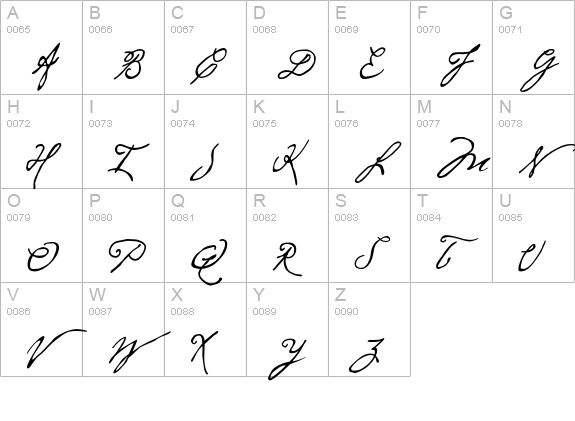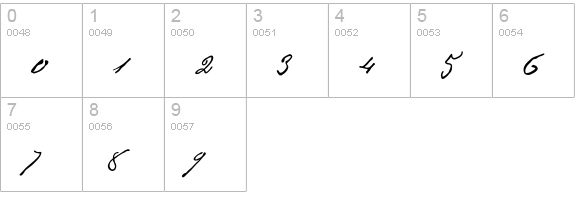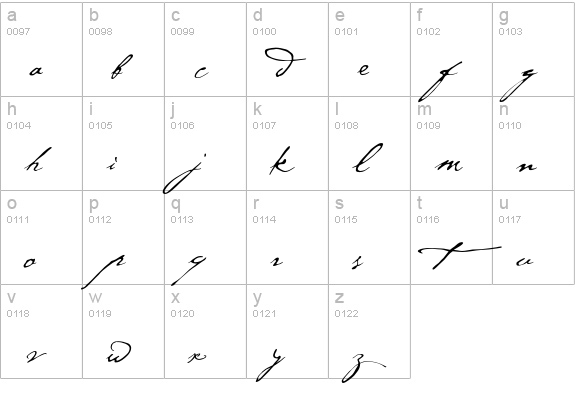
Cezanne Font Details
Cezanne font is a modern and stylish typeface that exudes sophistication and elegance. With its clean lines and unique curves, this font is perfect for a wide range of design projects, from branding to editorial. Whether you're creating a logo, poster, or website, Cezanne font will make your text stand out and leave a lasting impression. What's even better is that Cezanne font is available for free download at FontsMarket.com. This means you can easily access this beautiful typeface without any cost, making it a valuable addition to your font collection. Don't miss out on the opportunity to enhance your designs with the timeless beauty of Cezanne font. Download it today and elevate your creative projects to the next level.